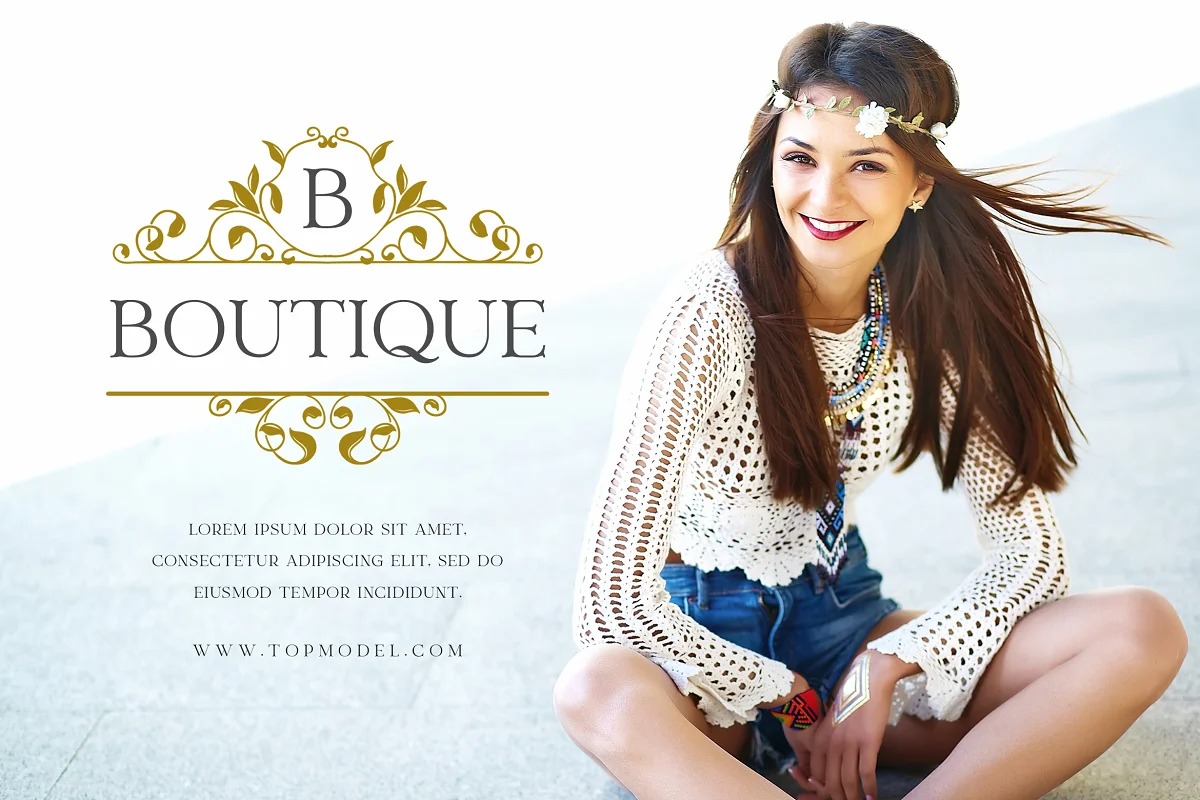
Britanie Font
Britanie Display Font
This font is a all-caps serif with wide stretch contemporary typographic, vintage futuristic art-deco touch Streamline influence of the 1930s and 1940s. It can make it easier to convey the message in your design. Use for awesome display, labeling, clothing, movie screen, poster, movie title, gigs, album covers, headlines magazine, logos, and much more. It’s also could be good for both fun and semi-formal text.